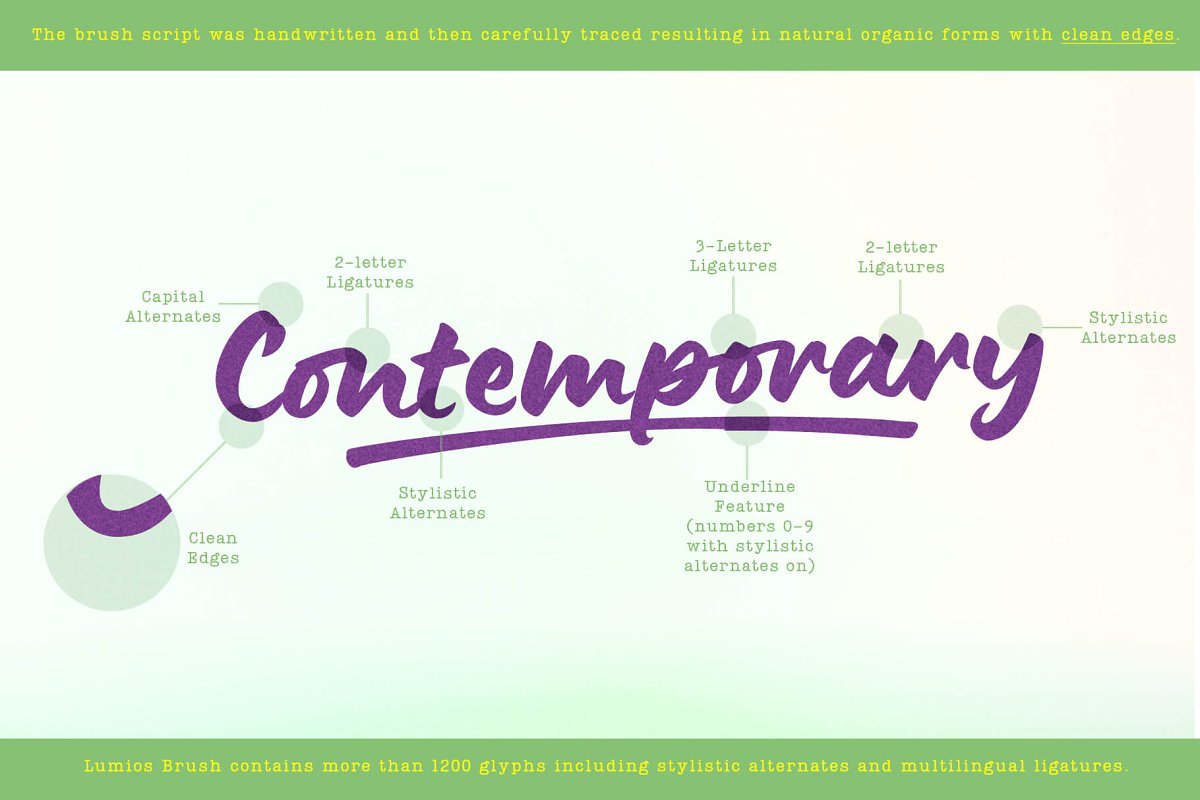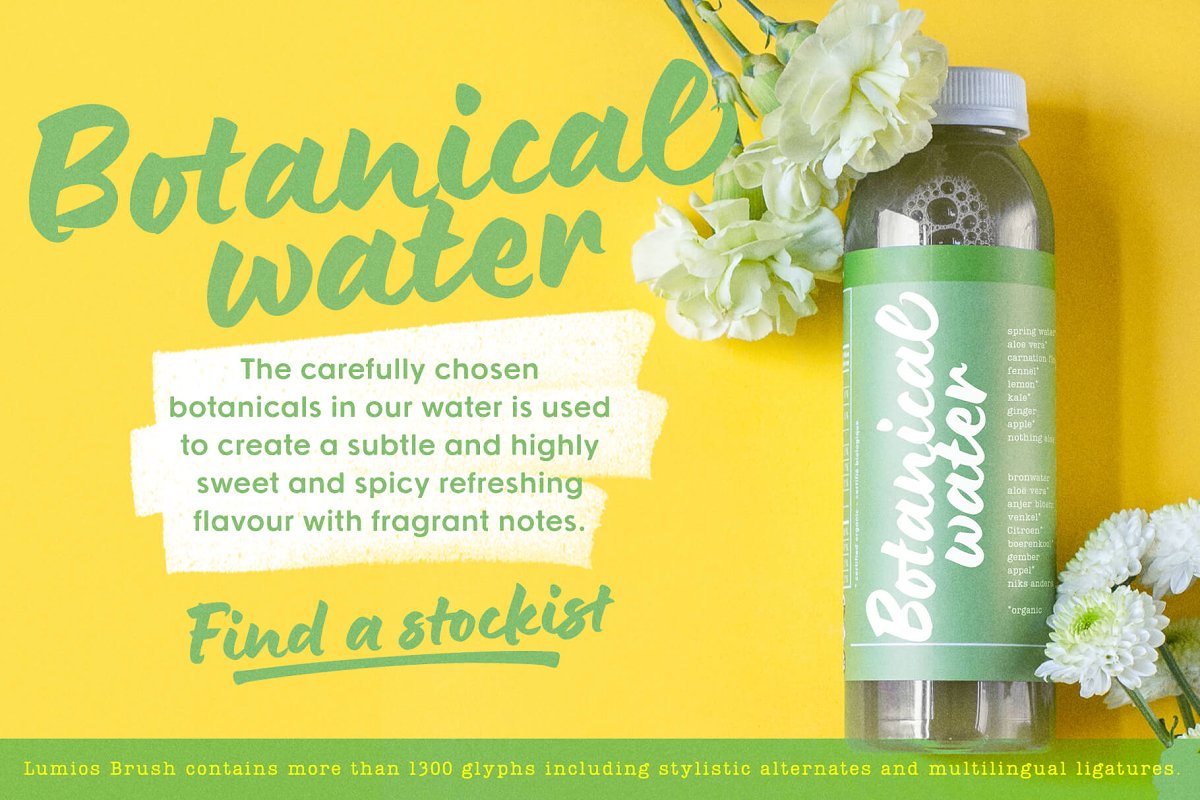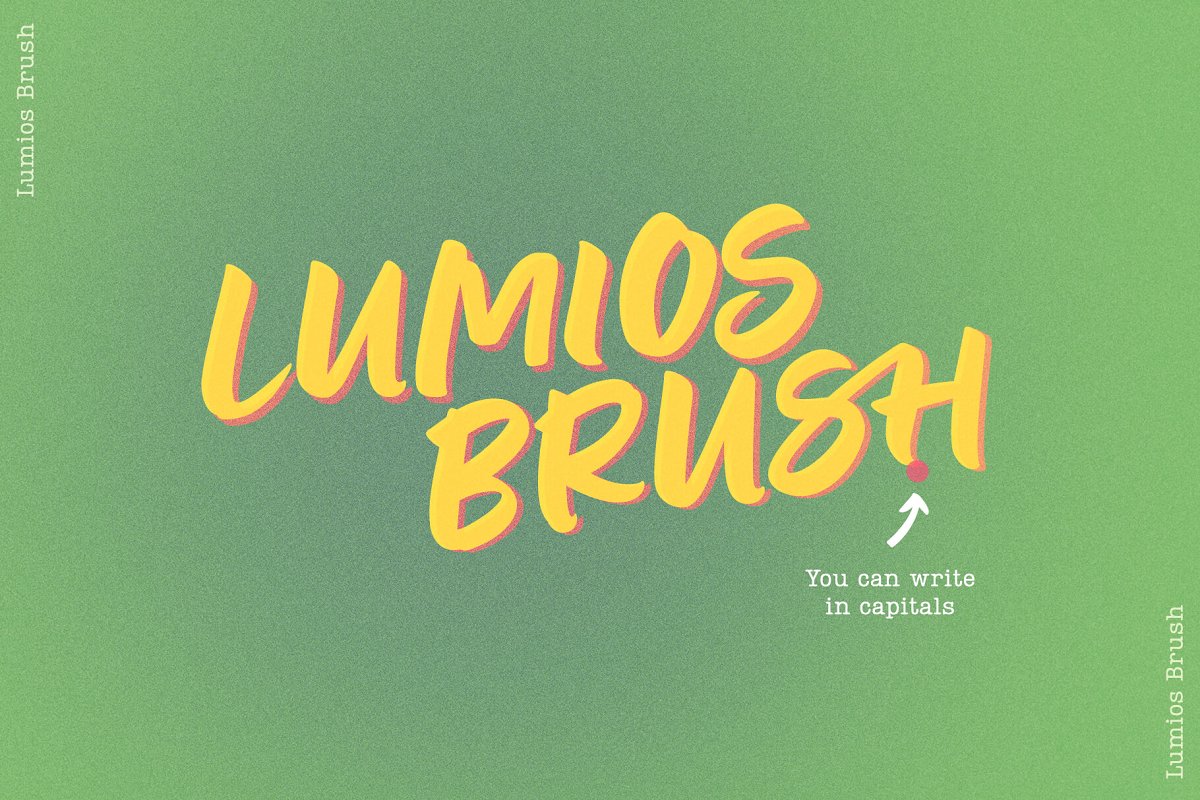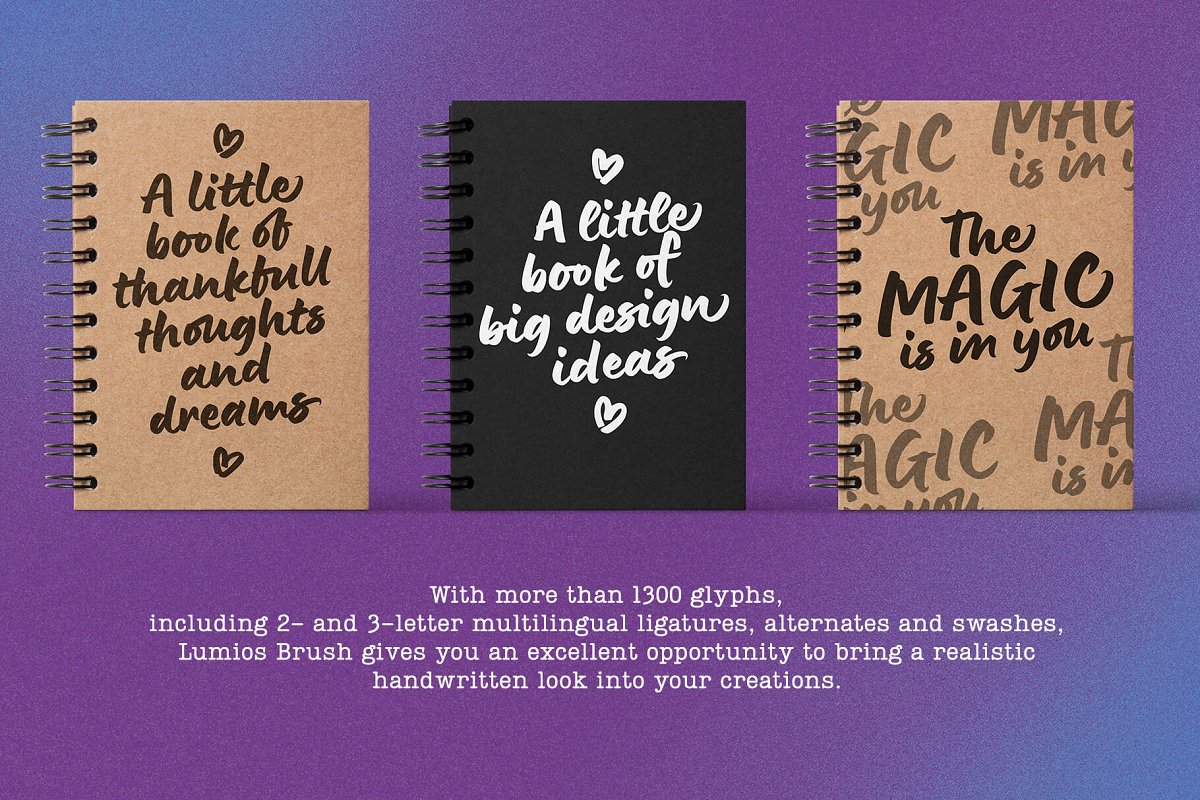
About the Lumios Brush Font
Introductory Sale 30% off until September 21, 2021Lumios Brush is a new addition to the Lumios Extended Font Family, It was written with Pilot Brush Pen on a glossy paper (which allows a really smooth movements of the brush pen), and then carefully digitized, Just like Lumios Marker, its Brush sibling has multilingual (including basic cyrillic) support
The font also benefits from 2- and 3-letter ligatures, stylistic alternates and swashes, underlines, arrows and a few heart symbols, If you already own Lumios Design Elements, you can used them with the Lumuis Brush font,